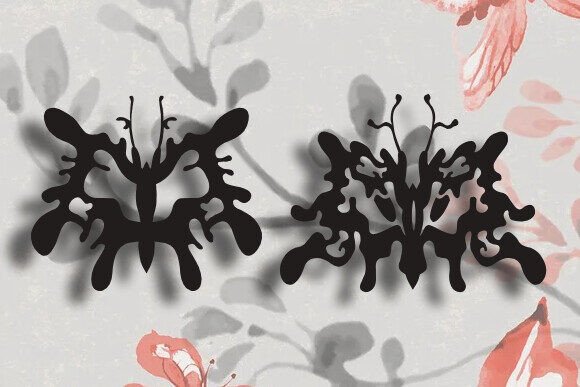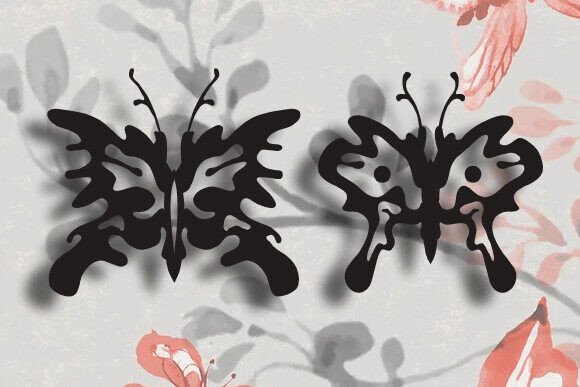
Introduction to Schmetterlinge Font Font
Fonts play a crucial role in design, and the Schmetterlinge Font font is a typeface that brings both character and versatility to any project. Whether you’re working on a branding project, a website, or a print design, the Schmetterlinge Font font offers a unique style that can elevate your work.
Bring elegance and nature into your designs with Schmetterlinge Dingbat, a stunning collection of intricate butterfly silhouettes.
Perfect for invitations, scrapbooking, logos, and decorative projects, this dingbat font lets you add a touch of whimsy and grace effortlessly The detailed butterfly shapes make this font ideal for creative and artistic projects.
Key Features of Schmetterlinge Font Font
Why Choose Schmetterlinge Font Font?
The Schmetterlinge Font font is more than just a typeface – it’s a design tool that helps you communicate your message with style and clarity. Its unique character set and versatile design make it suitable for a wide range of applications, from elegant invitations to bold headlines.
With its carefully crafted letterforms and balanced proportions, the Schmetterlinge Font font ensures readability and visual appeal across all mediums.
What makes Schmetterlinge Font font special?
The Schmetterlinge Font font stands out with its unique design, exceptional readability, and versatility across various design applications.